Handwriting is a vital skill that helps us communicate, organize our thoughts, and express ourselves creatively. For children and adults alike, mastering neat and readable handwriting can be a challenge, but the right tools can make a big difference. Traceable fonts are designed to guide learners through the correct strokes and spacing of letters, making them a perfect choice for anyone looking to improve their penmanship. In this article, we’ve rounded up 15 of the best traceable fonts available on platforms like Canva. These fonts are not only helpful for educational purposes but also fun to use, turning the practice of handwriting into an enjoyable activity.Â
1. Canva Student Font Dotte
Why it is perfect Traceable font: This font features a simple, dotted style that mimics the traditional handwriting worksheets used in classrooms. It’s perfect for beginners to trace over, helping them understand letter forms and spacing.
2. Dingos Stamp Outline
Why it is perfect Traceable font: Dingos Stamp Outline offers a rough, textured outline that captures attention and makes the tracing process engaging. This font is great for older learners who enjoy a more artistic approach to handwriting practice.
3. Hollywood
Why it is perfect Traceable font: Hollywood’s bold, clear, and slightly curved lettering is excellent for those learning cursive or enhancing their script handwriting. Its distinct style helps reinforce the flow between letters.
4. KG Primary Dots
Why it is perfect Traceable font: Designed specifically for educational use, KG Primary Dots include dotted letters that are easy for young learners to trace. This font helps improve fine motor skills and letter recognition.
5. KG Primary Dots Lined
Why it is perfect Traceable font: This variant of KG Primary Dots includes guiding lines, which are essential for teaching learners the correct height and positioning of letters, crucial for developing consistent handwriting.
6. KG Primary Penmanship Lined
Why it is perfect Traceable font: With solid lines and a slightly bold style, this font aids in teaching more definitive penmanship, making it easier for learners to transition from tracing to independent writing.
7. Kompot Display Outline
Why it is perfect Traceable font: This font features a unique outline style that is visually interesting and practical for tracing. It’s suitable for creative projects that also serve as handwriting practice.
8. Layiji
Why it is perfect Traceable font: Layiji’s design incorporates soft, rounded edges that are gentle for beginners. Its clear and open forms make it easy to follow, ideal for initial handwriting exercises.
9. Neal
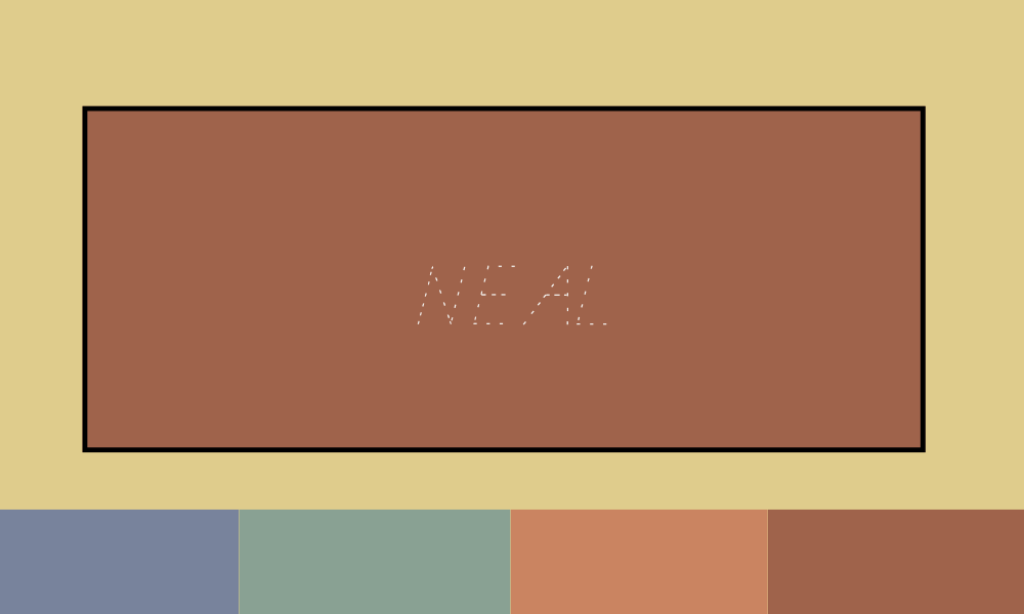
Why it is perfect Traceable font: Neal’s uniform and somewhat blocky letters provide a modern take on traditional handwriting. This font is great for teaching learners about spacing and alignment.
10. Quad Line
Why it is perfect Traceable font: Featuring geometric, squared lines, Quad Line helps learners focus on straight strokes and angles, making it an excellent choice for those practicing print handwriting.
11. Raleway Dots
Why it is perfect Traceable font: A dotted version of the popular Raleway font, this design is clean and modern, suitable for both children and adults looking to practice handwriting or create artistic lettering.
12. Stenciliqo Extruded
Why it is perfect Traceable font: Stenciliqo Extruded’s bold, industrial look is not just for design flair; its clear, cut-out style makes it easy to trace and ideal for more advanced handwriting practice.
13. Trace
Why it is perfect Traceable font: True to its name, Trace is a straightforward, easy-to-follow font designed for the earliest stages of handwriting education, perfect for preschoolers and early learners.
14. UKIJ Elipbe Chekitilk
Why it is perfect Traceable font: This font supports different script styles, providing a valuable tool for practicing specific character shapes, particularly useful in multilingual learning contexts.
15. Vintage Modern
Why it is perfect Traceable font: Combining old-style serif sensibilities with modern flair, Vintage Modern is excellent for advanced learners who wish to practice a sophisticated handwriting style.